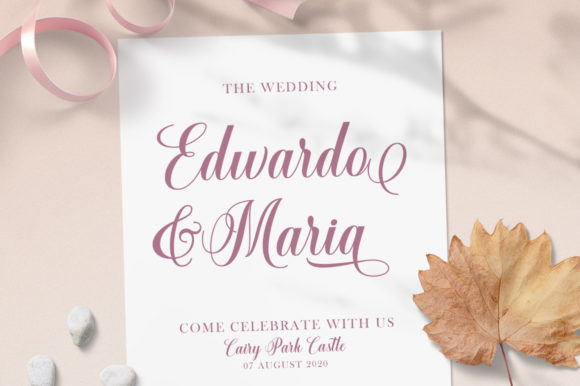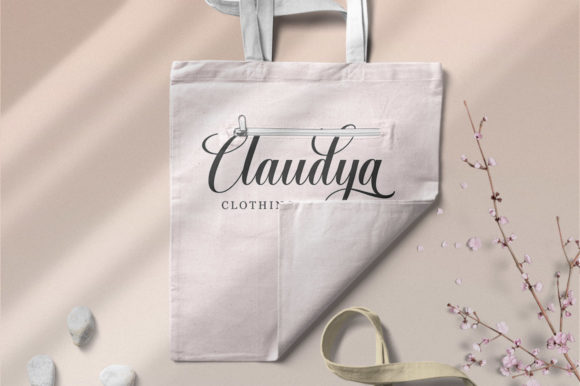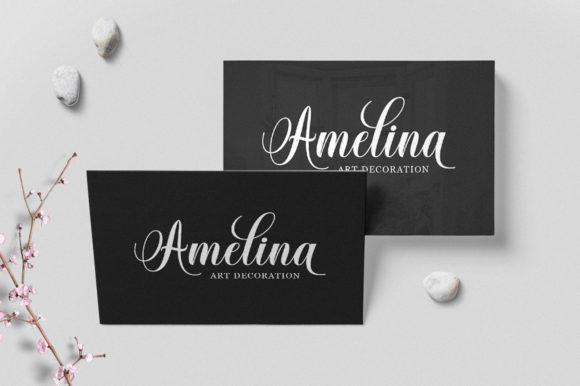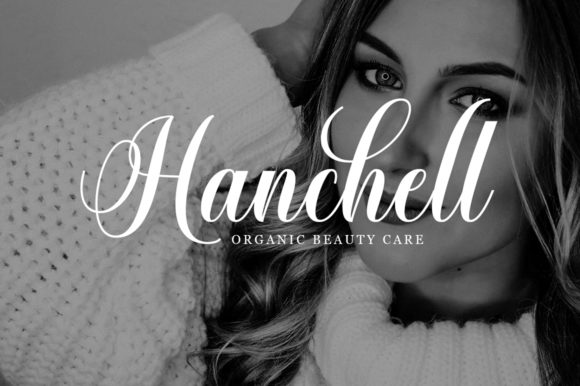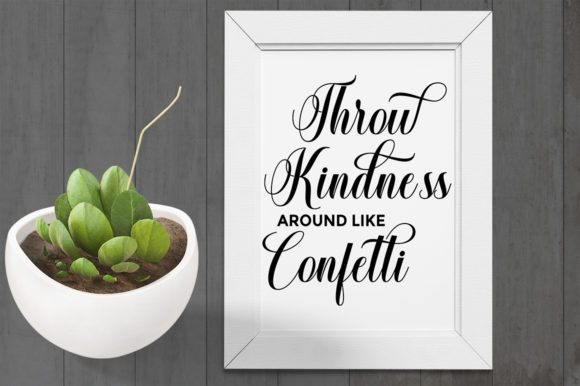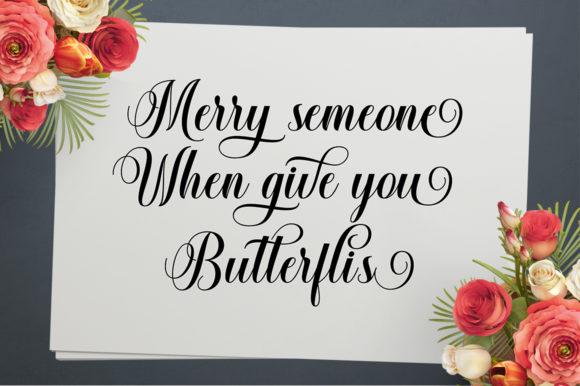
Introduction to Methalia Font
Have you ever found yourself staring at a blank canvas, eager to bring your creative vision to life, but struggling to find the perfect design element to tie everything together? That’s where the Methalia Font comes in – a delicate, elegant, and flowing handwritten font that can breathe new life into your most ambitious projects. With its beautiful and well-balanced characters, this free download is a treasure trove of design possibilities, ready to be unleashed on your next creative project.
Whether you’re a seasoned designer or just starting out, the Methalia Font is an invaluable resource that will elevate your designs to new heights. Its stunning alternates, gorgeous glyphs, and smooth lines make it the perfect addition to any design portfolio. Plus, with a transparent background and high-quality design, you can rest assured that your work will stand out from the crowd.
Key Features of Methalia Font
- Unique, modern font style suitable for various design applications
- Transparent background allows for easy customization and layering
Honest Review: Methalia Font
I recently had the chance to work with the Methalia Font, and I must say, it’s a great addition to any designer’s toolkit. One of the standout features of this font is its high quality design, making it perfect for creative projects that require a professional touch.
What works well: ✨ The font’s modern and sleek design makes it easy to read and visually appealing. It’s also great for use on a transparent background, which adds an extra layer of flexibility to your design. The free download option is also a major plus, making it accessible to designers of all levels.
Some of the benefits of the Methalia Font include:
- Modern and sleek aesthetic that’s easy to read
- Works well on transparent backgrounds
Limitations: ⚠️ While the Methalia Font is a great resource, it’s not suitable for use in situations where a more traditional font is required. Additionally, some users may find the font’s modern design to be too bold or overpowering.
Overall impression: I was pleasantly surprised by the Methalia Font’s performance, and I would highly recommend it to designers looking for a high-quality, modern font. With its free download option and versatility, it’s a great addition to any design resource library.
Methalia Font is perfect for creating logos, business cards, brochures, and other marketing materials. Its high-quality design and transparent background feature make it ideal for creating eye-catching graphics and designs.